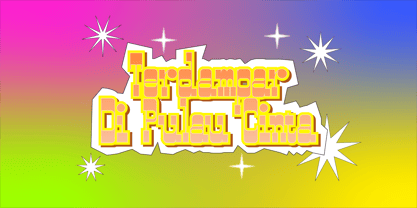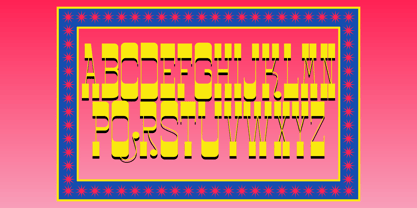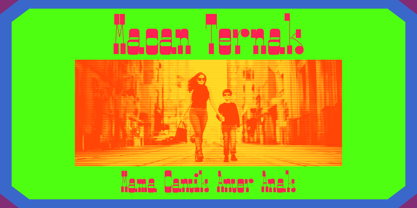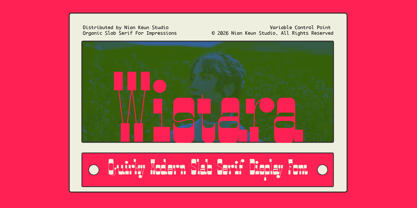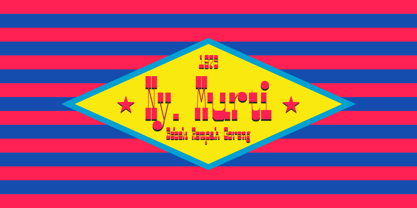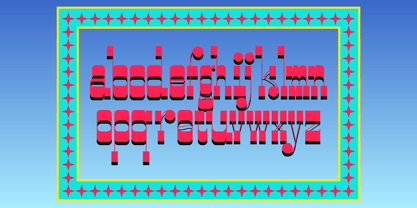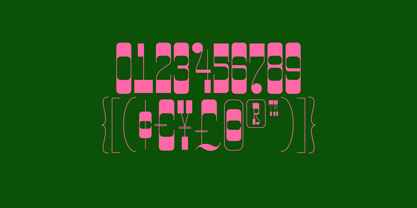
Wistara
by Nian Keun Studio
The Wistara Font Family was designed by Mugi Raharjo and published by Nian Keun Studio. Wistara contains 1 styles. More about this family
Wistara is a bold modern slab serif display font that blends strong geometric foundations with organic, expressive details. Designed to stand out instantly, Wistare features chunky slab forms, rounded terminals, and confident proportions that deliver a powerful yet approachable visual presence. This typeface balances contemporary structure with a slightly playful rhythm, making it highly versatile for eye-catching headlines and statement-driven designs. Its slab serifs are solid and assertive, while the smooth curves and generous counters keep the overall tone fresh, modern, and visually engaging. Wistare is crafted for designers who want impact without stiffness—a display font that feels bold, confident, and expressive, yet still readable and adaptable across various creative contexts. Whether used in large-scale typography or compact layouts, Wistare maintains its character: strong, memorable, and full of personality. Perfect for * Editorial headlines * Posters & print campaigns * Branding & logo design * Packaging design * Album covers * Fashion & lifestyle visuals * Modern advertising * Experimental layouts Style Classification * Modern Slab Serif * Display Typeface * Bold & Expressive * Contemporary / Experimental
Designers: Mugi Raharjo
Foundry: Nian Keun Studio